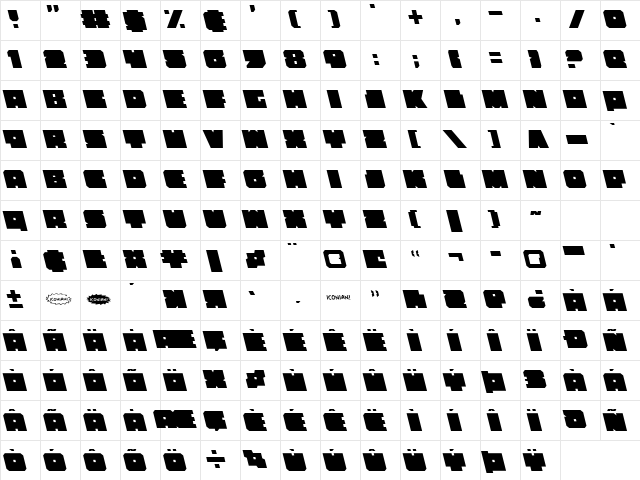
Anakefka Leftalic Italic Free Font
Anakefka Leftalic Italic
Design Context for Anakefka Leftalic
Anakefka Leftalic is a composed and adaptable typeface that performs quietly and consistently across a wide range of design contexts. The slanted form adds forward momentum and visual energy.
Pro Tip: Use Anakefka Leftalic for emphasis, pull quotes, and subheadings where its slanted energy can add rhythm to the layout.